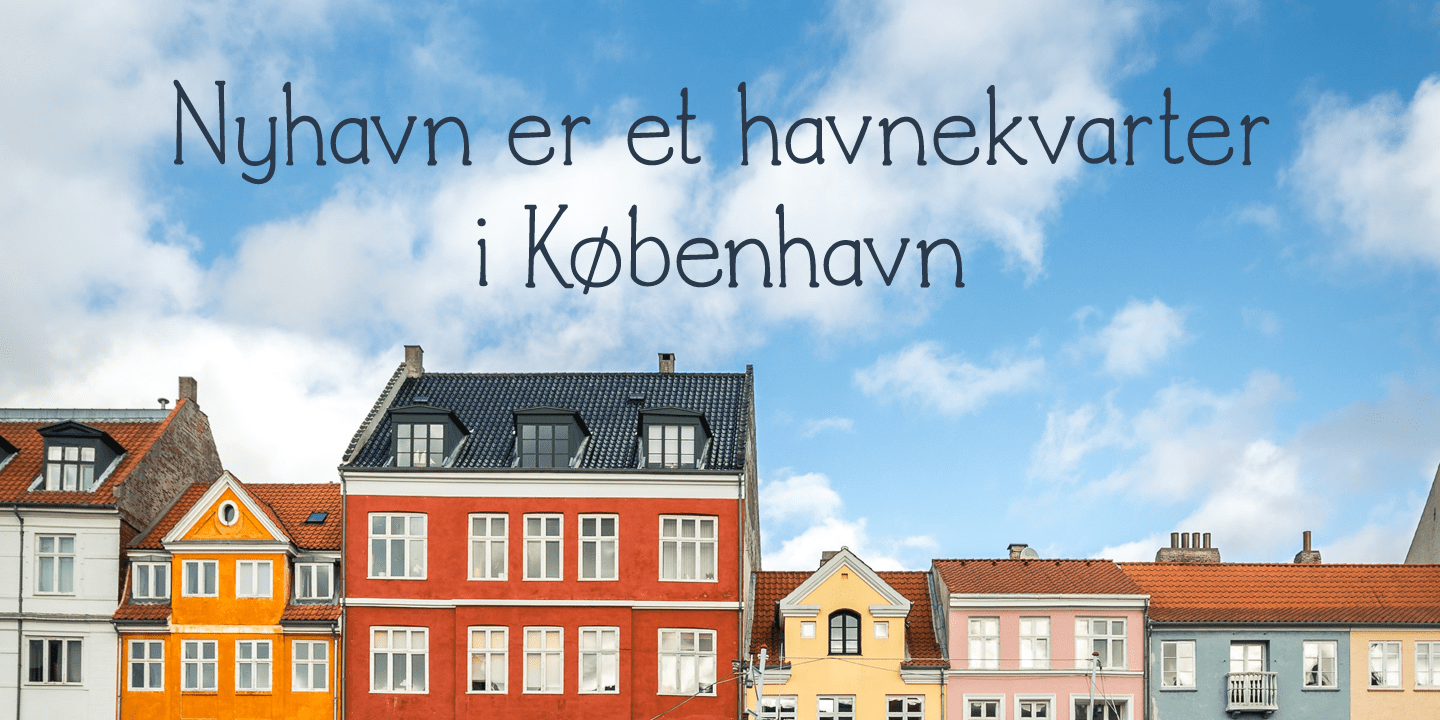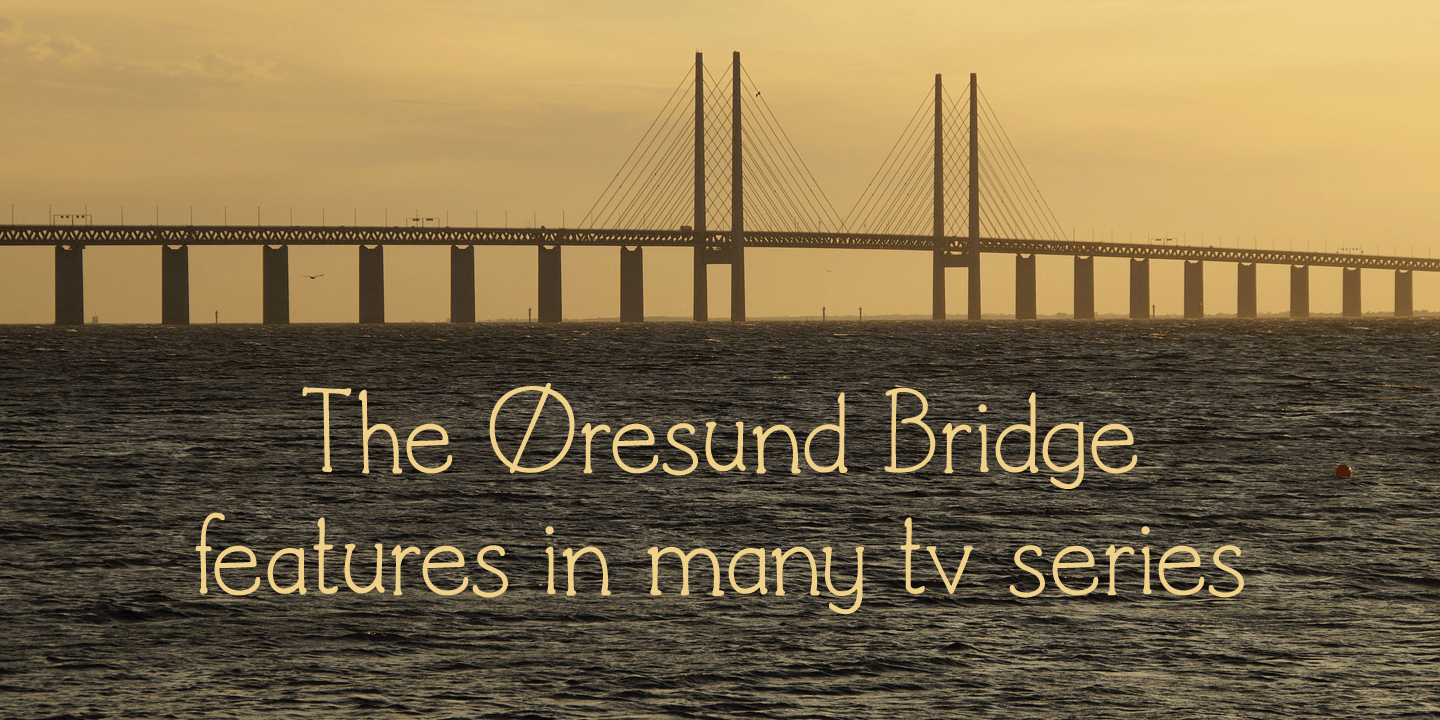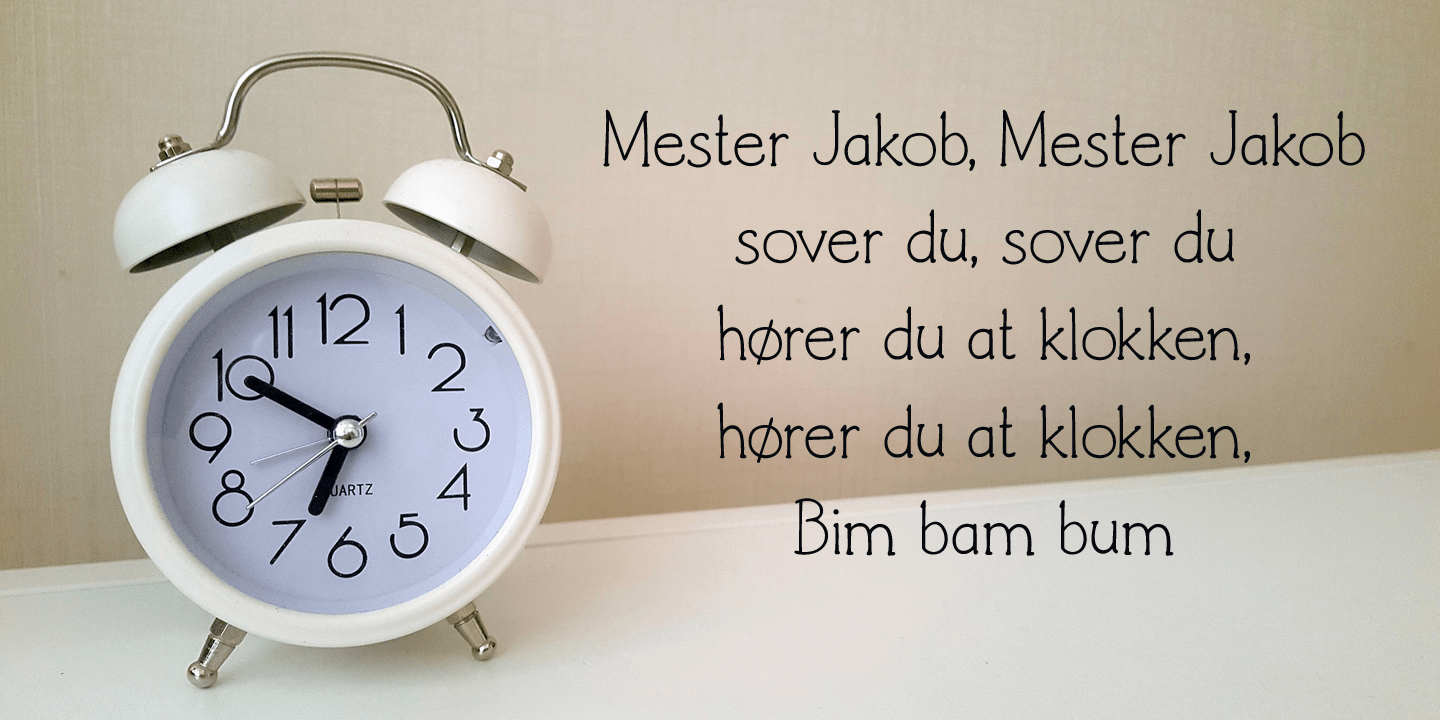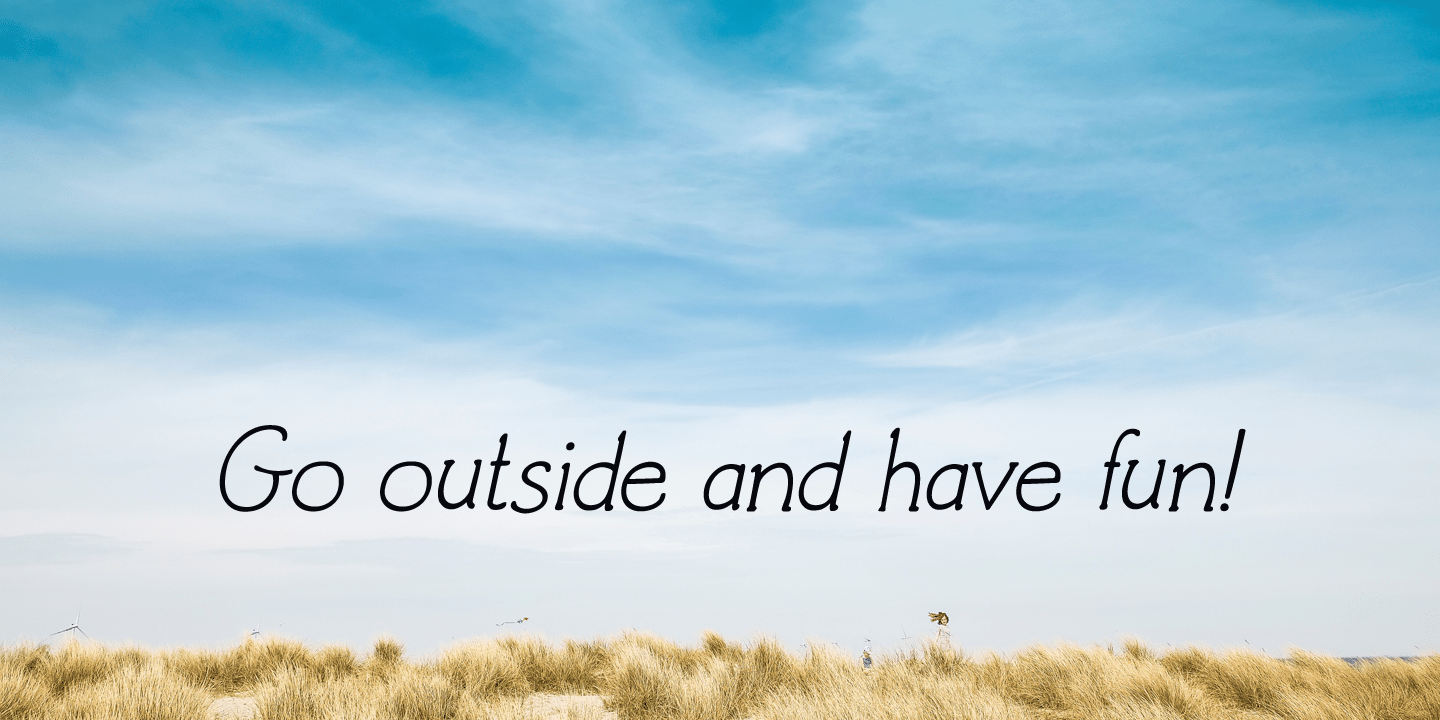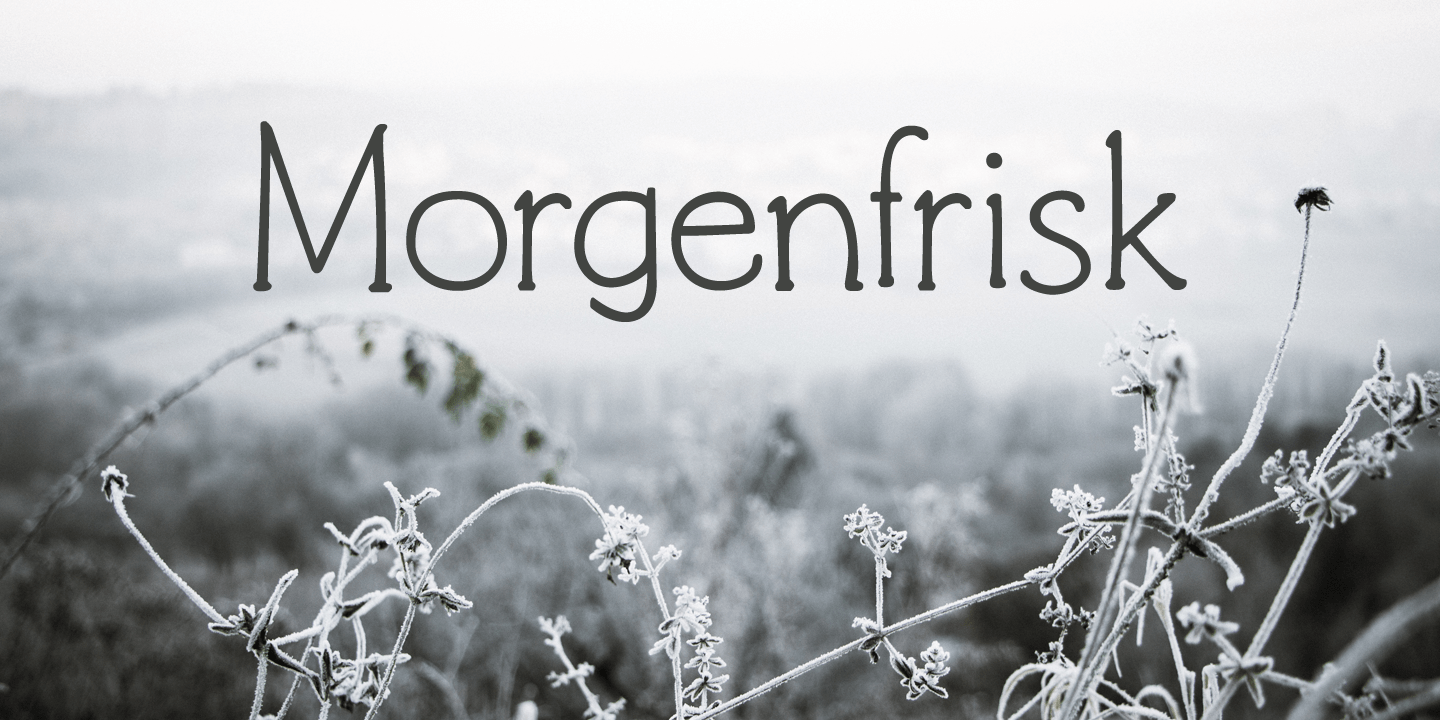
About Morgenfrisk
Morgenfrisk is one of those words you cannot really translate: it is Danish for ?feeling refreshed after a good night\’s sleep?. Morgenfrisk font is a handmade, thin school class font – very legible, very neat and very nice too. I found the original letters…